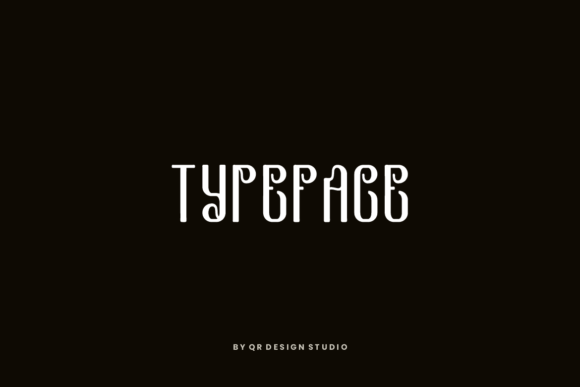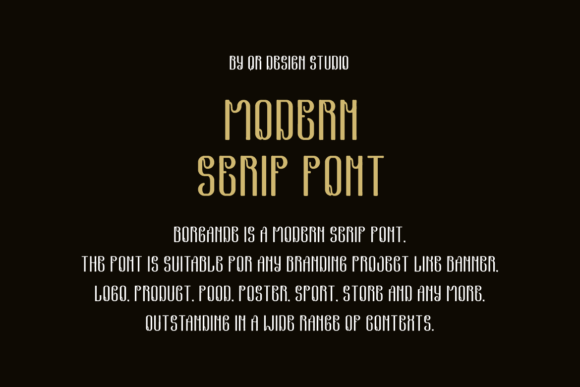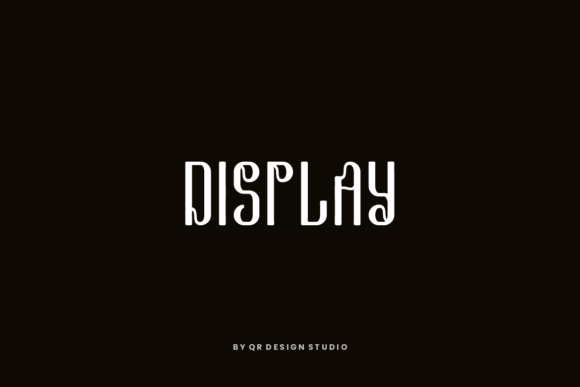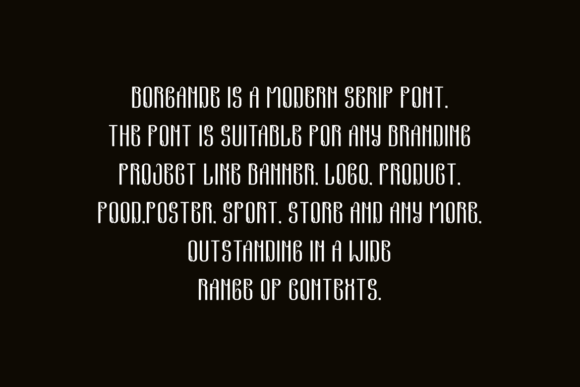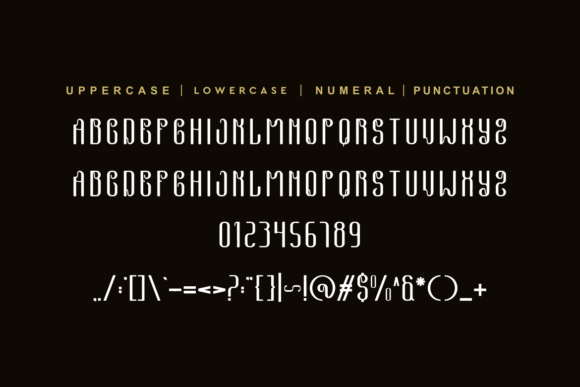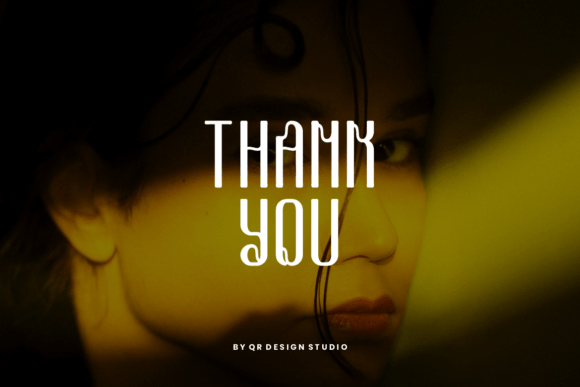
The Birth of a Bold Design
Have you ever been on the hunt for the perfect font to elevate your brand’s identity? I know I have. It’s that moment when you’re browsing through endless options, trying to find that one font that screams ‘us’ – that one that makes your logo, your tagline, and your overall aesthetic truly unforgettable. For designers like you and me, this is a quest we embark on frequently.
Enter Borgande Font, a stunning, bold, and authentic decorative font designed to make a statement in any branding project. Whether it’s a logo, a sports team’s identity, or a marketing campaign, Borgande Font is sure to shine in a wide range of contexts. Its value lies in its versatility and uniqueness, making it an essential addition to any designer’s toolkit.
Borgande Font Key Features
- Size: The font family includes a range of weights from Thin (100) to Black (900), offering flexibility for various design needs.
- Resolution: Designed for high-resolution displays, Borgande Font is optimized for use at 300 DPI or higher.
- Unique Characteristics: This font features a unique blend of modern and vintage elements, making it suitable for a wide range of design applications, from digital products to print materials.
- Font Width: With a font width of approximately 600-700 characters, Borgande Font provides ample space for text and is ideal for body text, headings, and titles.
Borgande Font Review
I recently had the chance to work with the Borgande font, and overall, I’m impressed. ✨ Here are some of the things that stand out to me.
- Unique Character: Borgande has a distinctive, hand-drawn feel that sets it apart from more traditional sans-serif fonts.
- Legibility: The font is surprisingly easy to read, even at smaller sizes.
That being said, there are some limitations to consider. ⚠️
- Weight Consistency: The font’s weights can feel a bit inconsistent, particularly when it comes to the bold and light variations.
- Lack of Italic: The font is available in regular and bold, but there is no italic version, which can be limiting for certain design applications.
Overall, I think Borgande is a solid choice for designers looking for a unique, legible font. While it may not be perfect, its strengths outweigh its weaknesses, making it a great addition to any design toolkit.
Tips for Getting the Most Out of Borgande Font
For the best results, use Borgande Font in conjunction with a clean and minimalist design aesthetic. This font is ideal for headings, titles, and other bold typography elements.
Comparison to Borgande Font: Montserrat has a more geometric and structured feel compared to Borgande Font’s more rounded and organic look.
Comparison to Borgande Font: Open Sans has a more neutral and straightforward feel compared to Borgande Font’s more distinctive and expressive look.